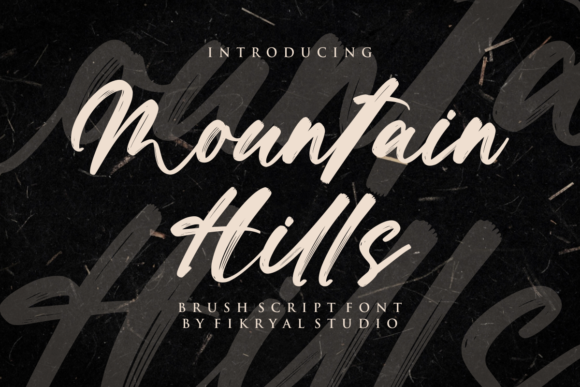
Behold the Enchanting Mountain Hills Font: A Stroke of Beauty for Your Digital Canvas
Let your words dance with an ethereal grace, carried aloft by the strokes of the Mountain Hills Font. This meticulously crafted script font, birthed from the creative forge of Fikryal Studio, is the epitome of elegance and charm. Its modern brush-styled handwritten design adds an organic touch to your digital creations, evoking a sense of authenticity and heartfelt connection.
With Mountain Hills, simplicity meets versatility. Effortless to use, it harmonizes seamlessly with various craft designs. From captivating newsletter titles that demand attention to heartfelt greeting cards that convey warmth, this font's versatility knows no bounds. Let your imagination soar as you unleash the boundless potential of Mountain Hills.
Experience the Limitless Allure of Mountain Hills:
- Newsletter Titles that Mesmerize: Elevate your newsletters to new heights with captivating titles rendered in the Mountain Hills Font. Its graceful strokes will intrigue and entice your readers, drawing them into the depths of your content.
- Greeting Cards that Touch the Heart: Craft heartwarming greeting cards that convey the essence of your heartfelt sentiments. Mountain Hills' organic charm will add a personal touch to your messages, making each card a cherished keepsake.
- Social Media Posts that Sparkle: Make your social media presence shine with Mountain Hills. Its elegant lines will transform your posts into visually compelling masterpieces that resonate with your audience.
- Logos that Leave a Lasting Impression: Create logos that exude an air of sophistication and distinction. Mountain Hills' distinctive character will ensure your brand stands out from the crowd, leaving an indelible mark on the minds of your customers.
Unlock the Creative Potential of Mountain Hills Today:
- Unleash Your Inner Artist: Embrace your creative spirit and let Mountain Hills guide you in crafting stunning digital designs. From enchanting invitations to captivating flyers, this font will amplify your artistic vision.
- Express Yourself with Authenticity: Infuse your digital creations with a touch of authenticity and personal style. Mountain Hills' handwritten design will add a genuine, relatable charm to your projects.
- Ignite Your Brand's Charisma: Elevate your brand's charisma with the Mountain Hills Font. Its elegant strokes will evoke a sense of sophistication and distinction, attracting customers who appreciate the finer things in life.